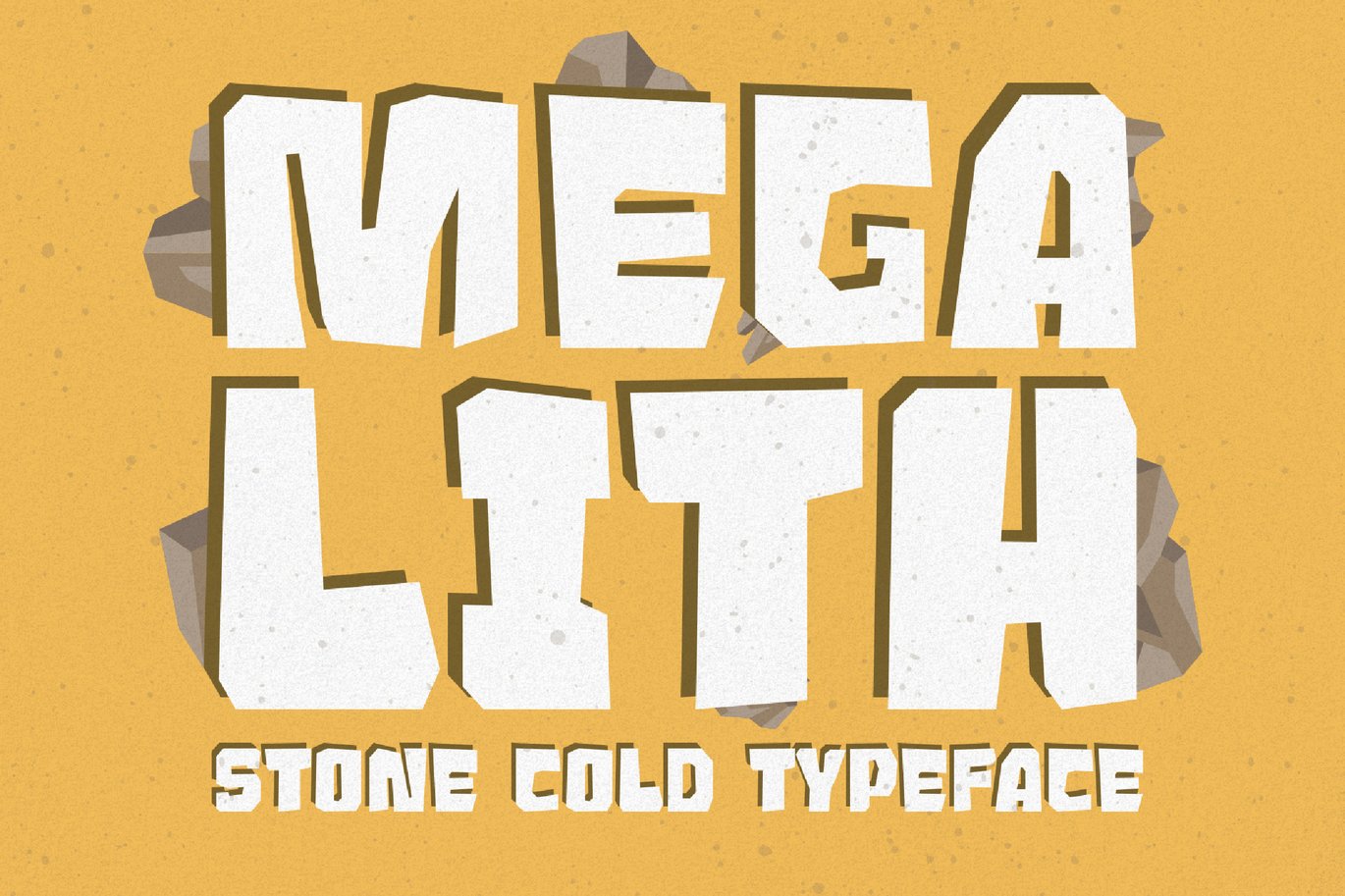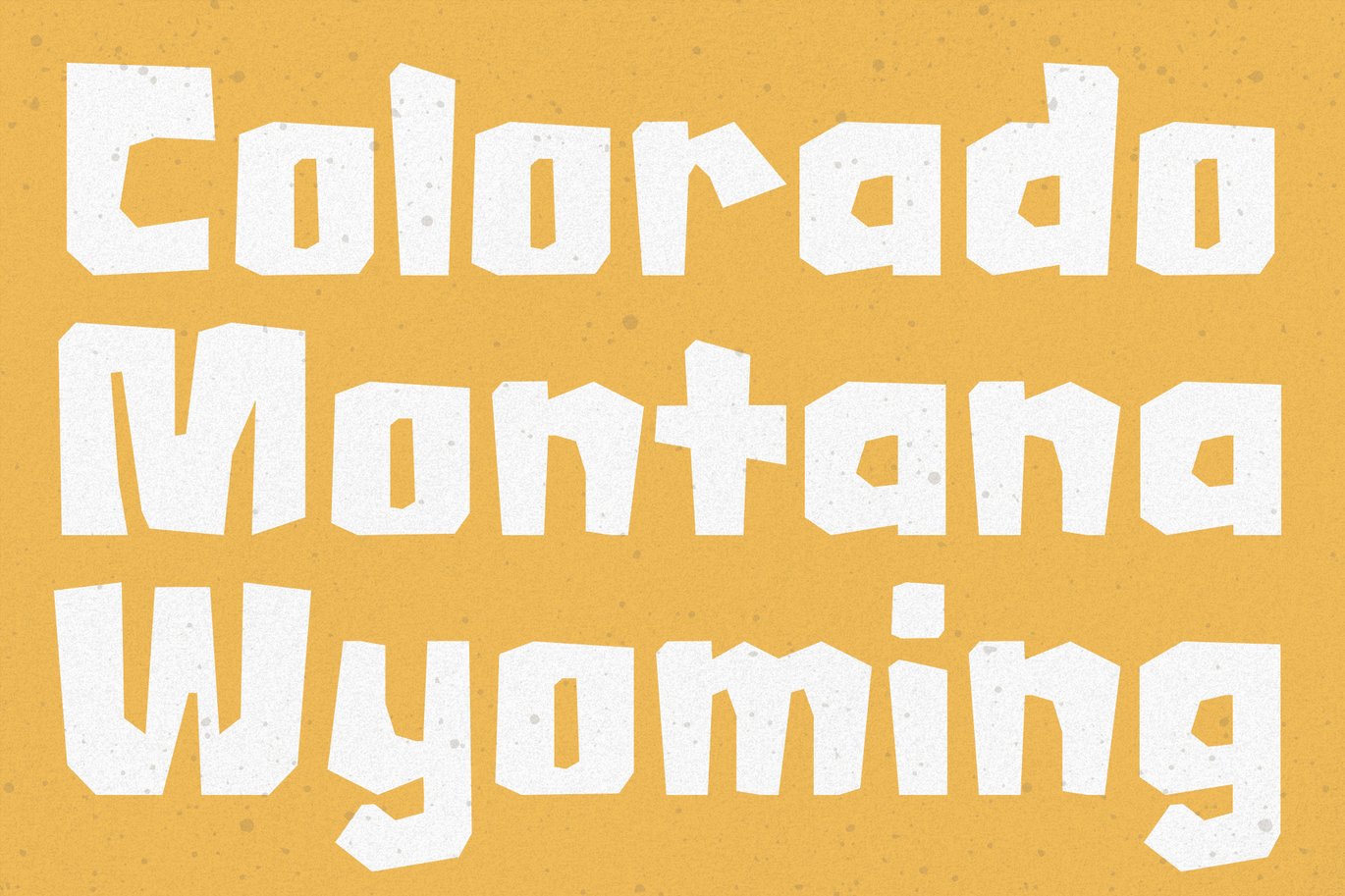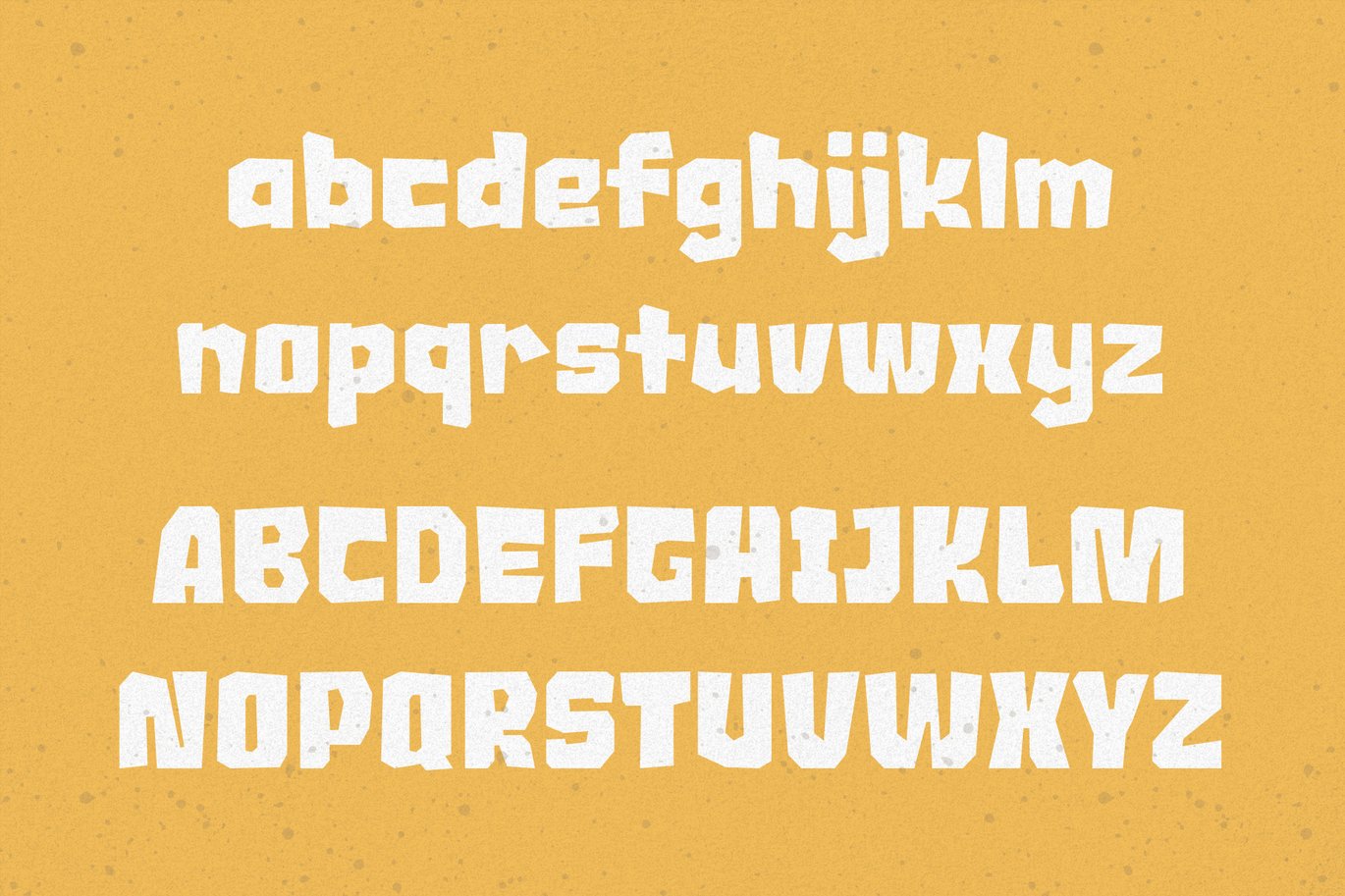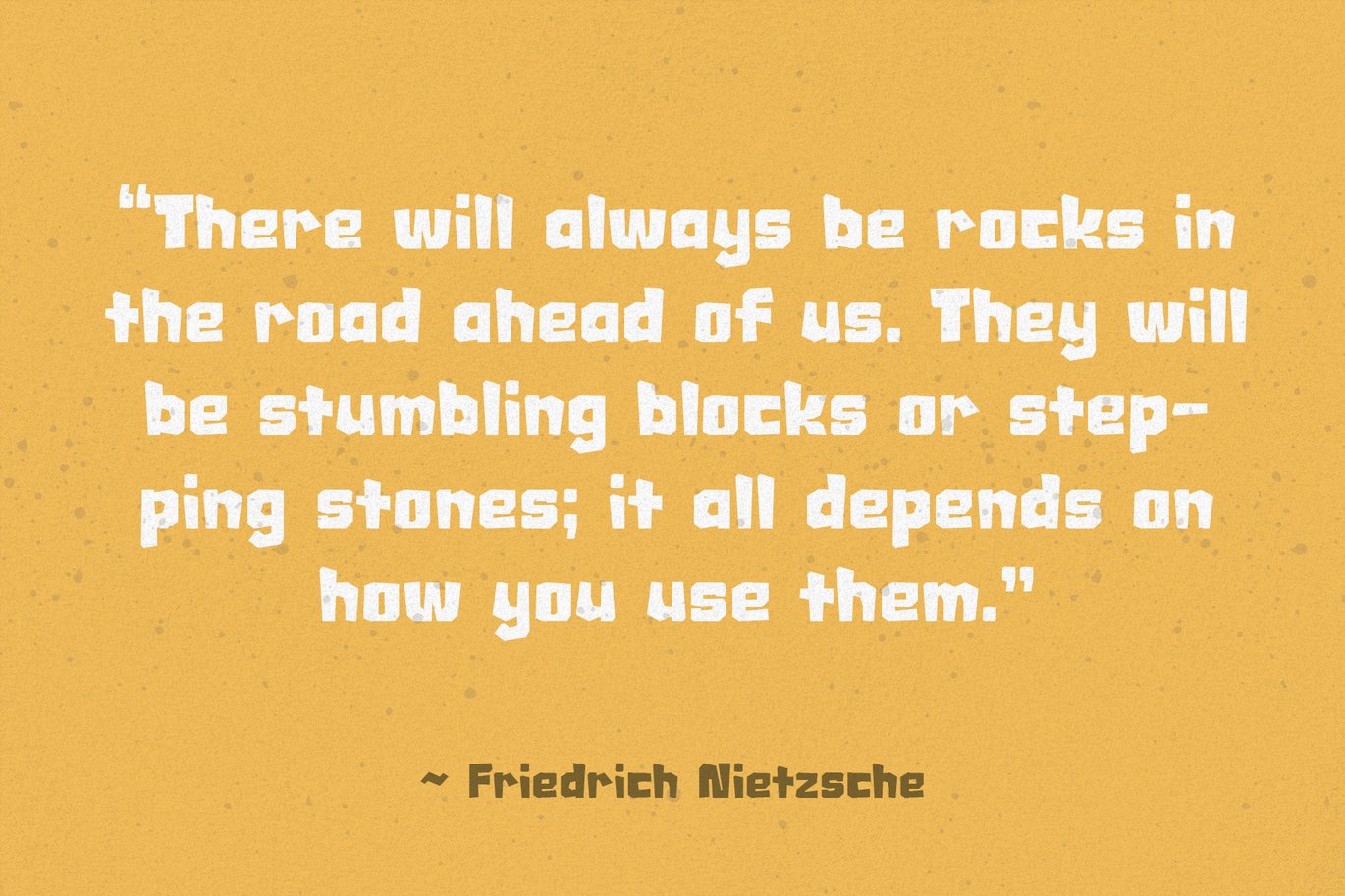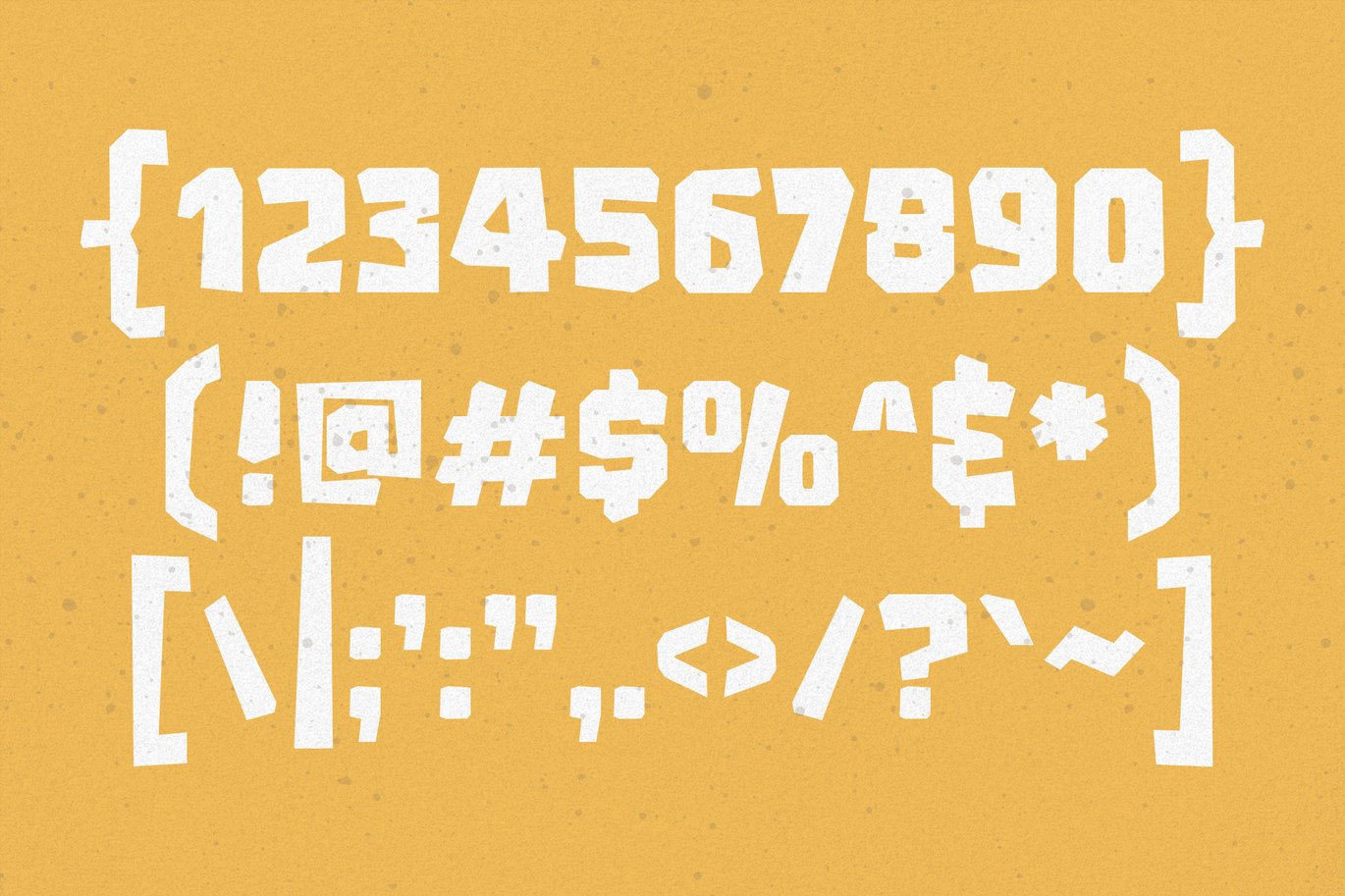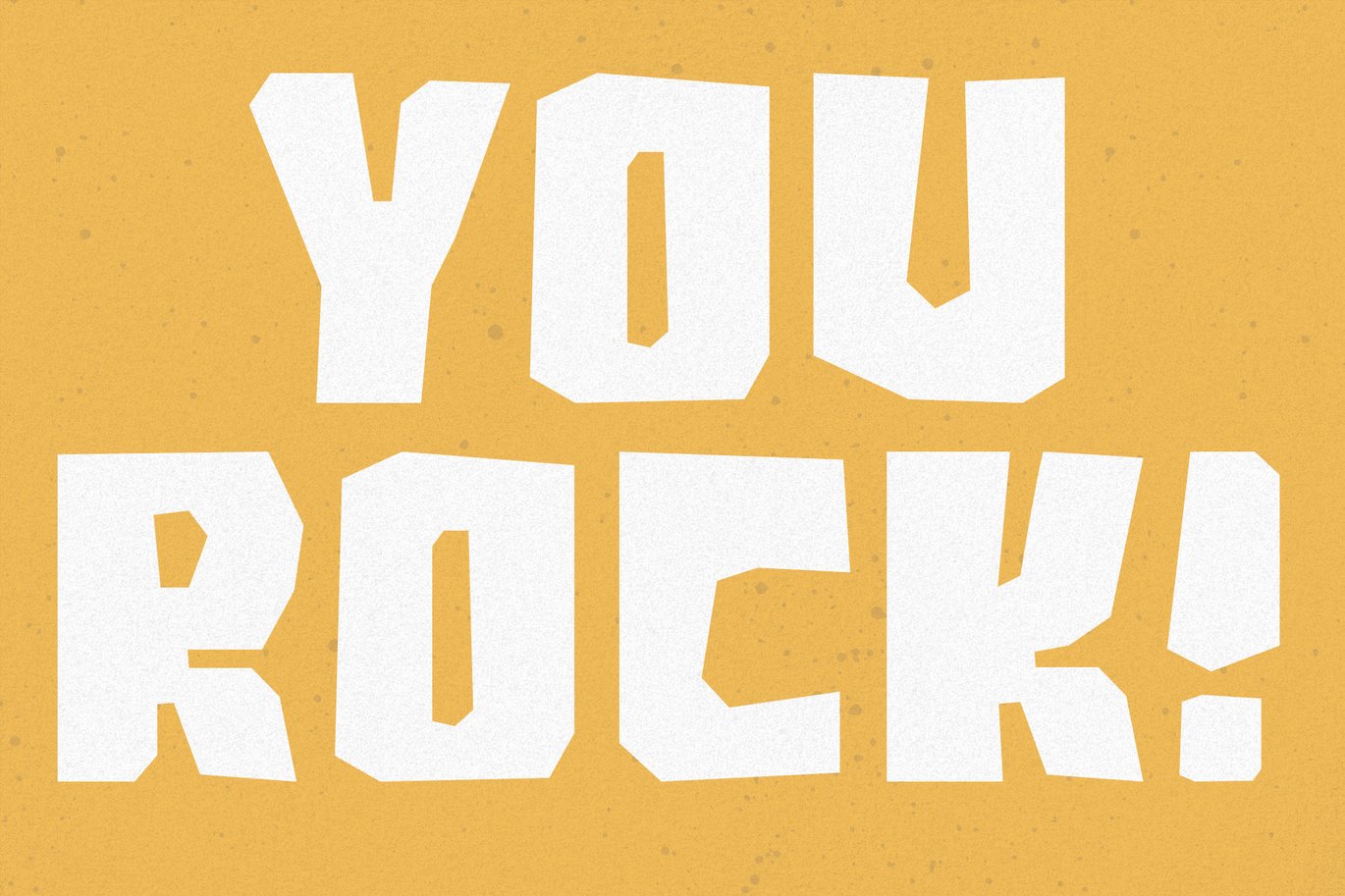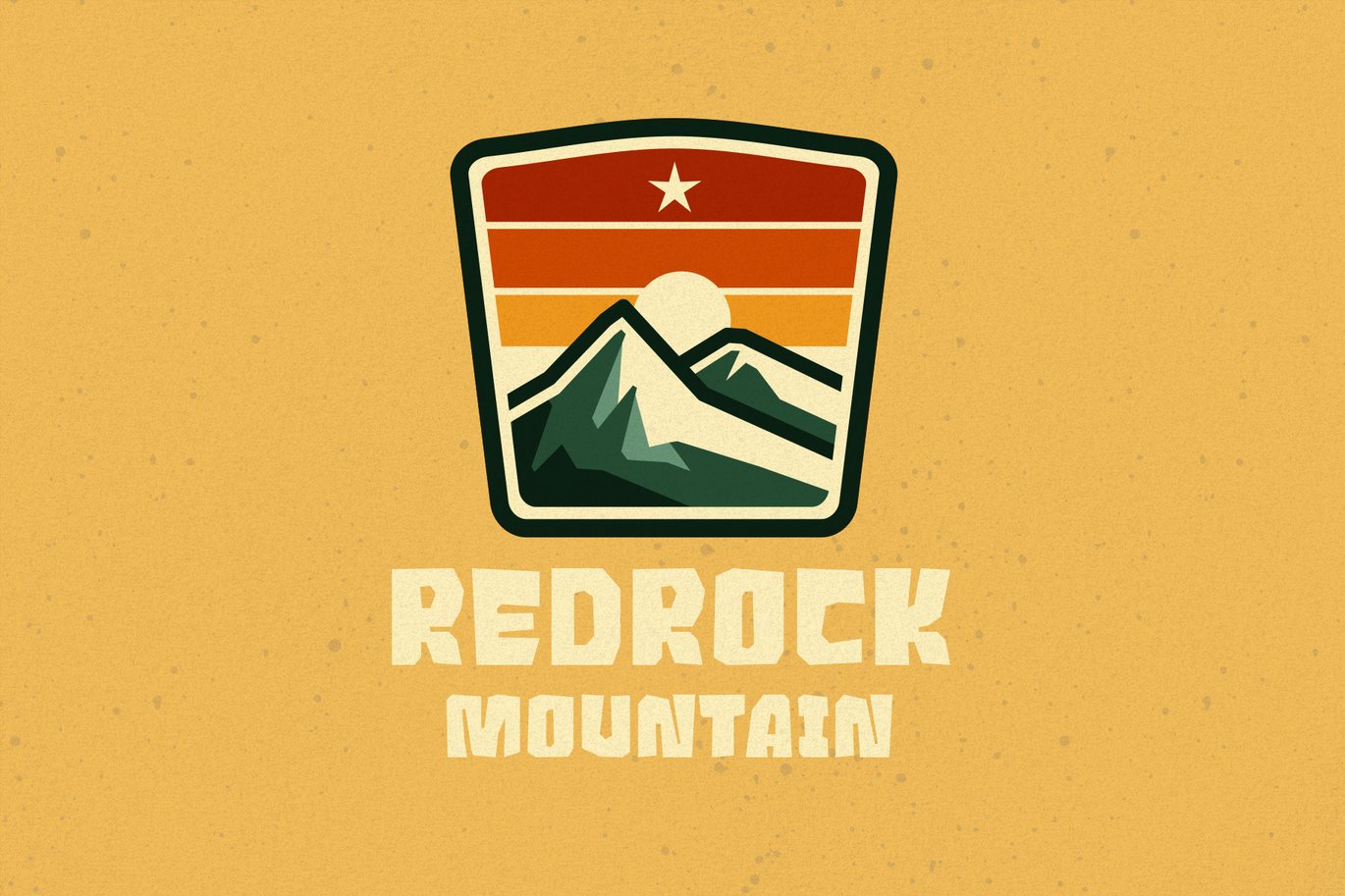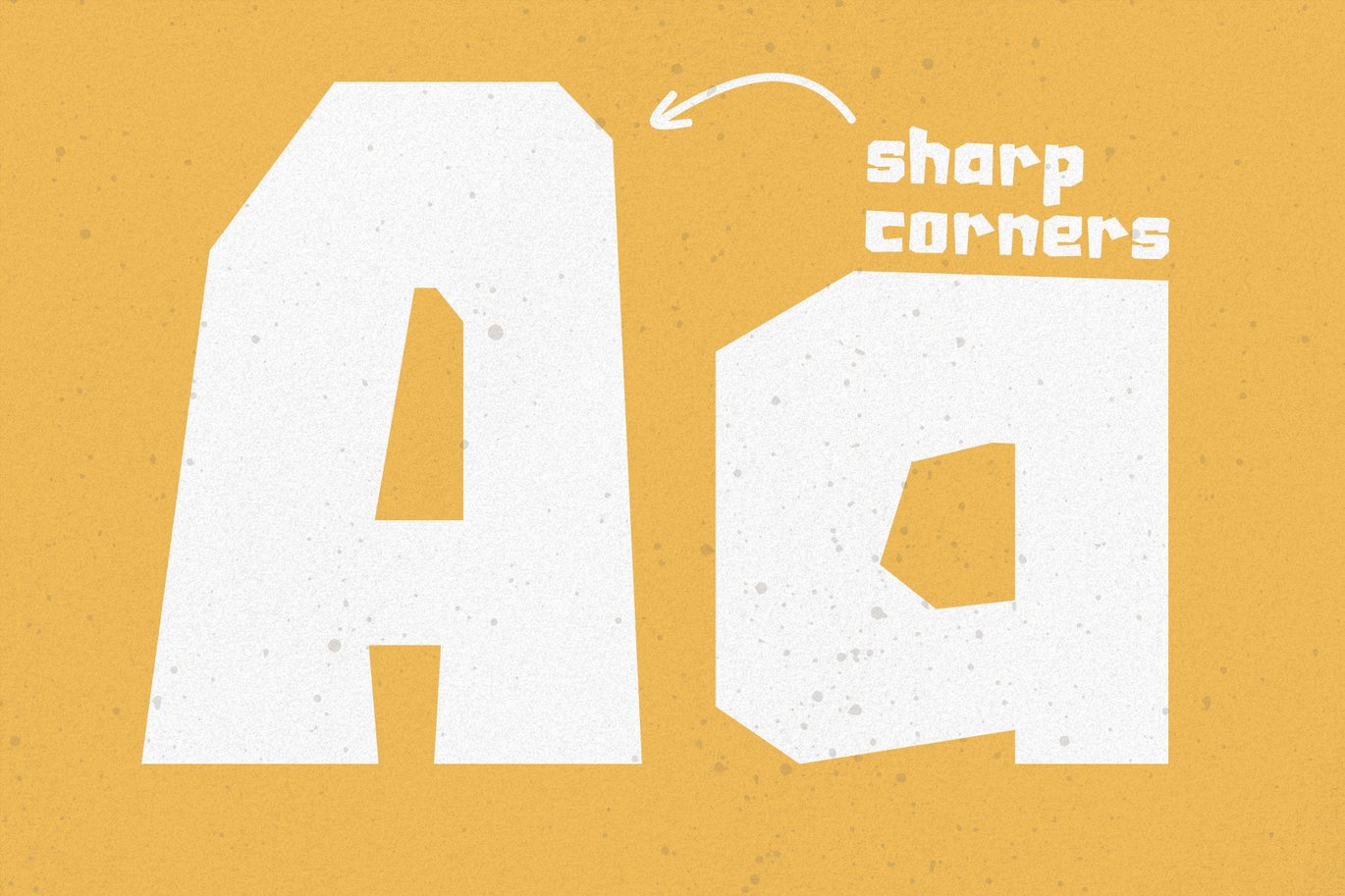
Megalith – Solid Typeface
Megalith is a bold, strong, and sharp display typeface. This font was inspired by giant rocks of the various Arizona deserts. With this font you can easily imitate the look and feel of rocks, stones, concrete, coal, and more. Thanks to its legibility Megalith looks beautiful large and small. You can use this font for branding, illustrations, headlines, Youtube, billboards, advertising campaigns, nature magazines, social media, packaging, etc.